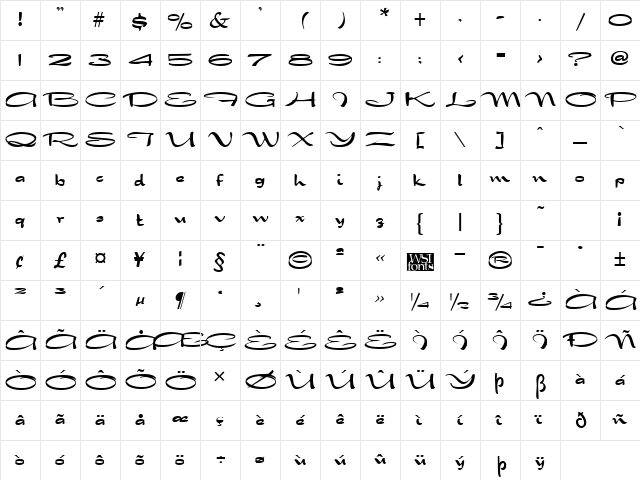
Draconian Regular
Draconian Family
Design Context for Draconian
Draconian is a composed and adaptable typeface that performs quietly and consistently across a wide range of design contexts.